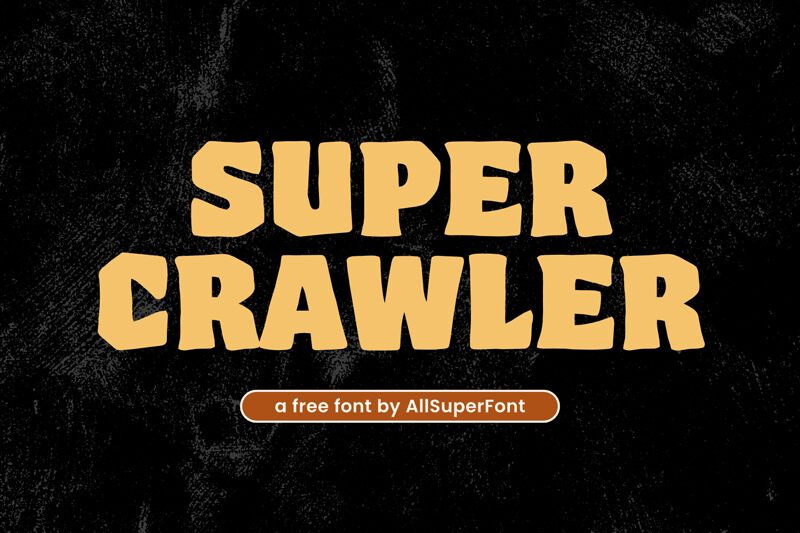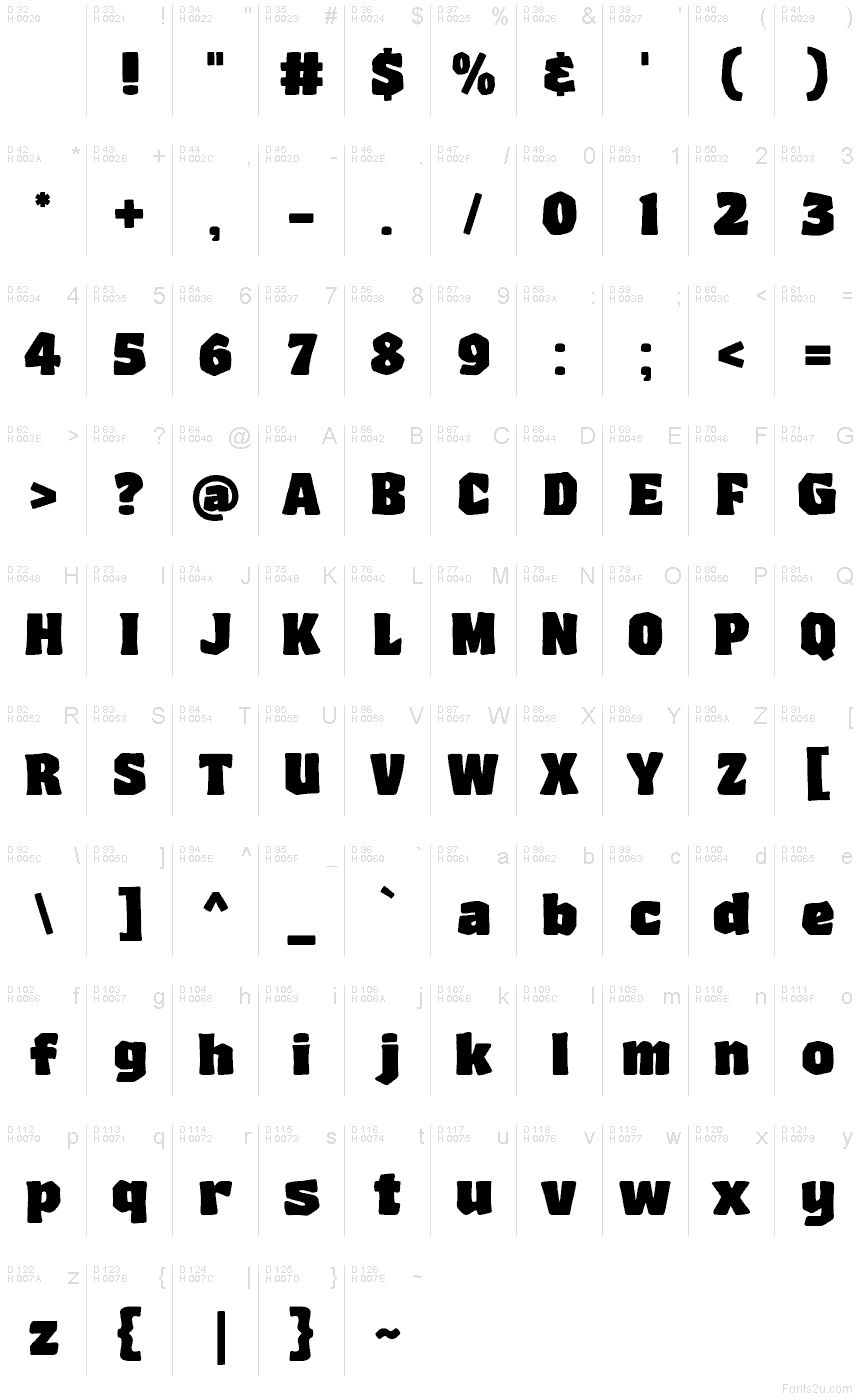
Super Crawler
Super Crawler font by fsuarez913 is a free decorative display typeface with a thick, gooey energy that practically oozes off the screen. Its chunky, uneven shapes feel hand-cut and slightly monstrous, like letters molded from wet clay or dripping ink, giving your titles an instant creature-feature vibe. The tight spacing and bold forms grab attention fast, making short words look loud, fun, and just a little bit creepy.
Using Super Crawler, you can dial up the drama on Halloween posters, spooky game titles, monster-themed party invites, horror zines, toy or slime packaging, and bold YouTube thumbnails. This free font shines when used big and loud, so keep it for headlines and pair it with a clean, simple sans serif for body text to let its wild texture do the talking.